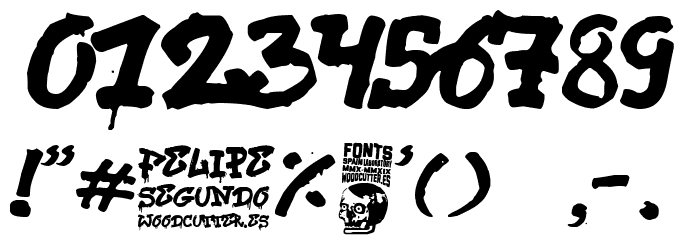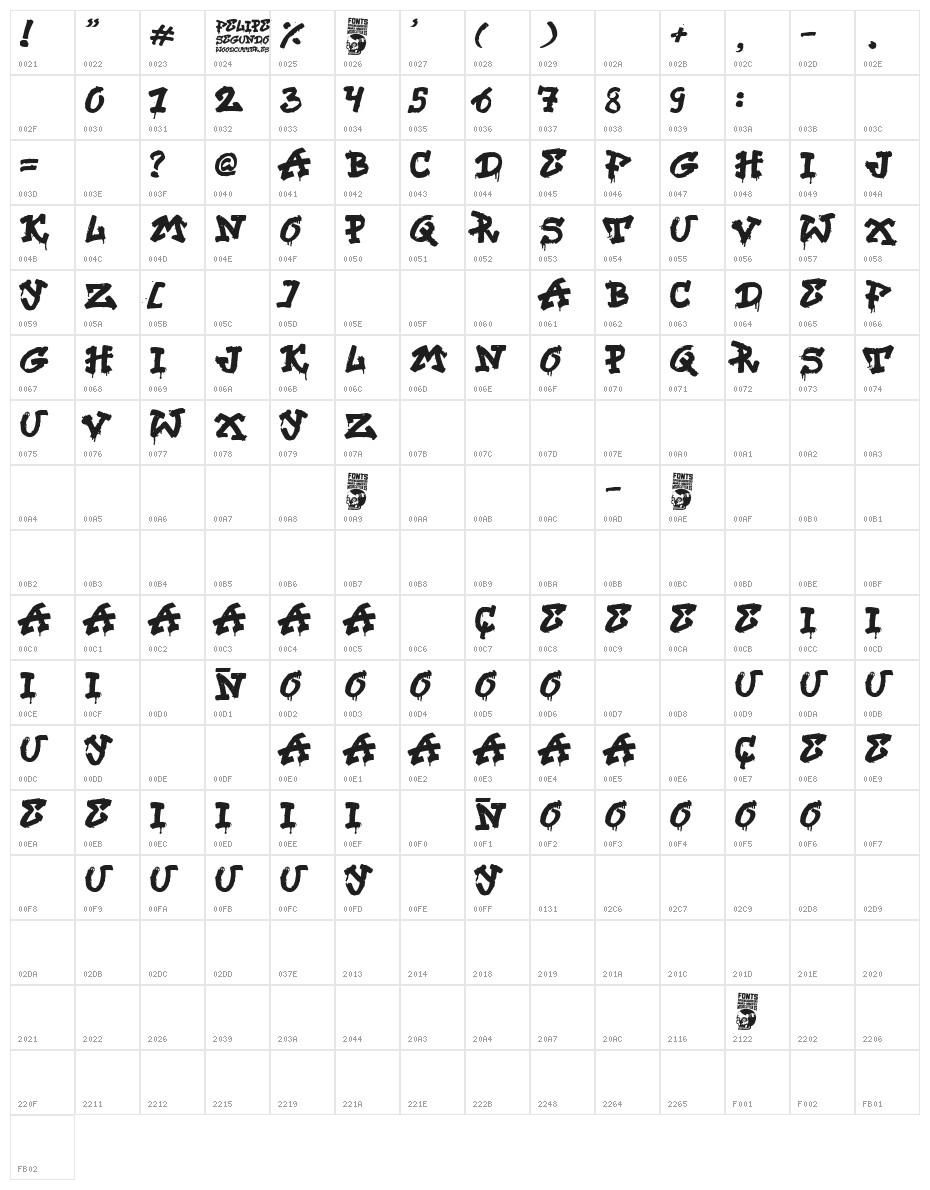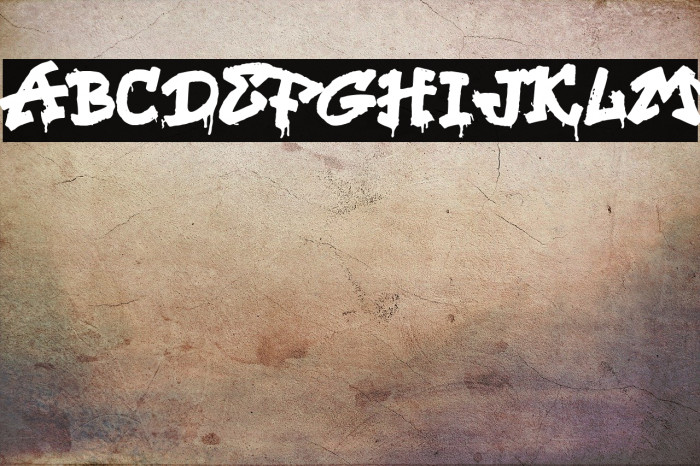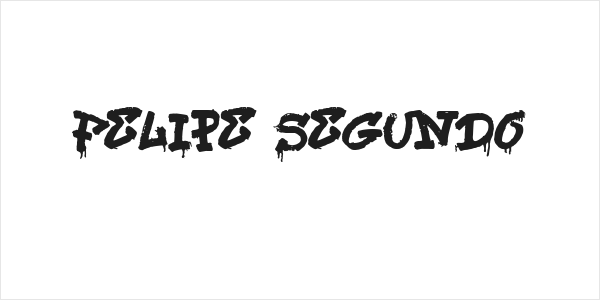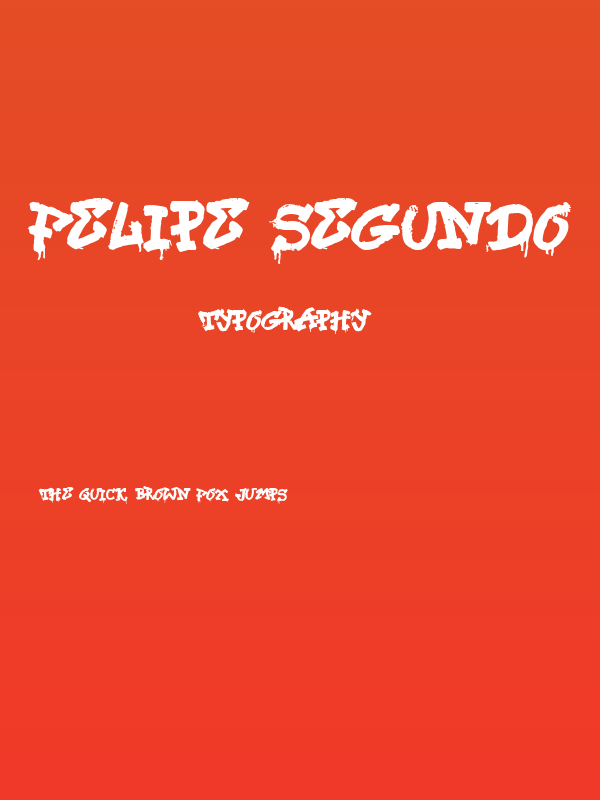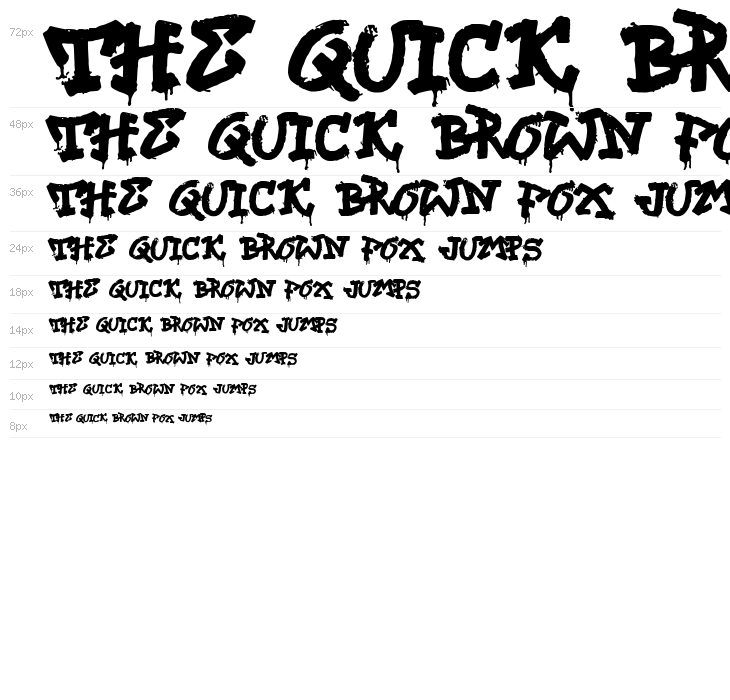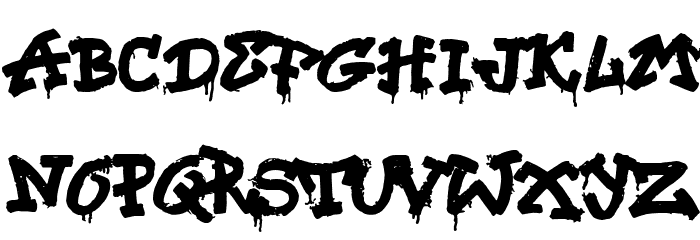
Felipe Segundo Font
Felipe Segundo Description
This font features a bold, graffiti-inspired style with a rugged and edgy appearance. The characters have a dripping effect, reminiscent of spray paint, giving it an urban and rebellious feel. The uppercase and lowercase letters maintain a consistent style, with exaggerated curves and sharp angles. Numbers and special characters follow the same aesthetic, ensuring a cohesive look across all text. The font's design is highly decorative, making it ideal for projects that require a strong visual impact.
| Overall Style | Urban, Rebellious, Graffiti |
| Proposed Projects | Perfect for street art designs, music album covers, event posters, and urban-themed branding. |